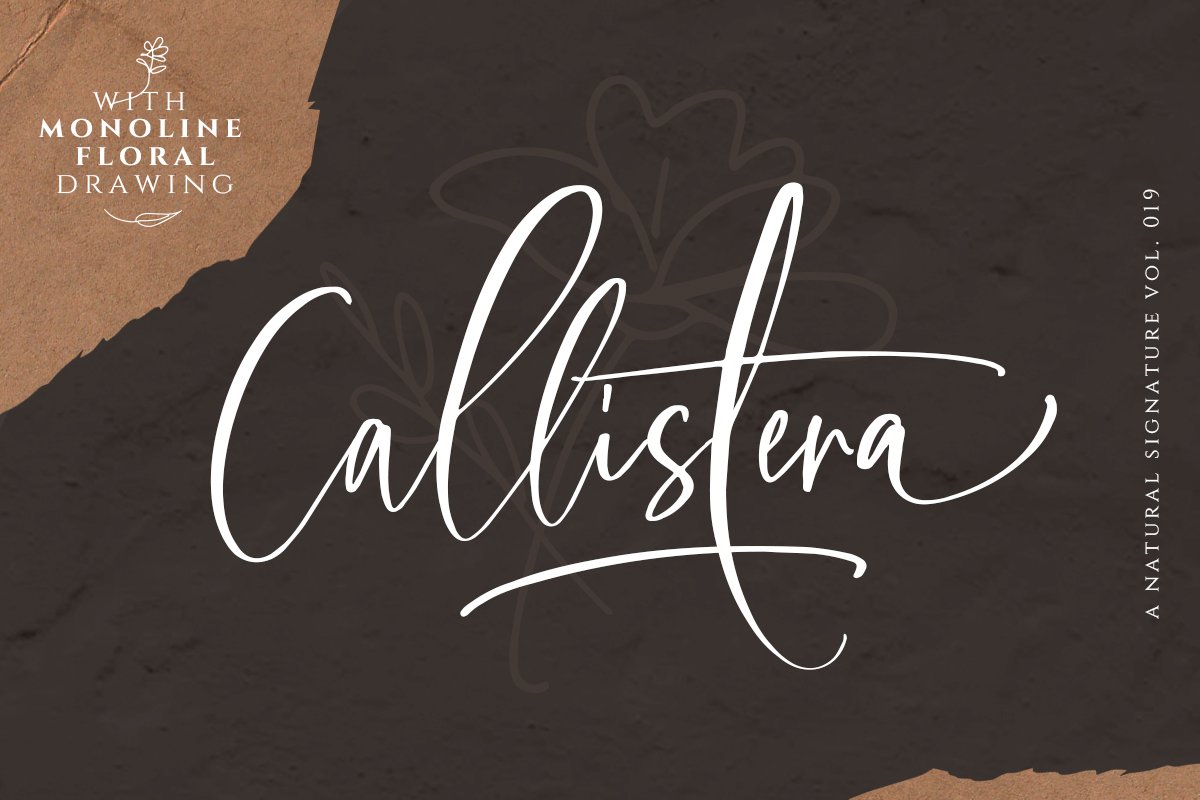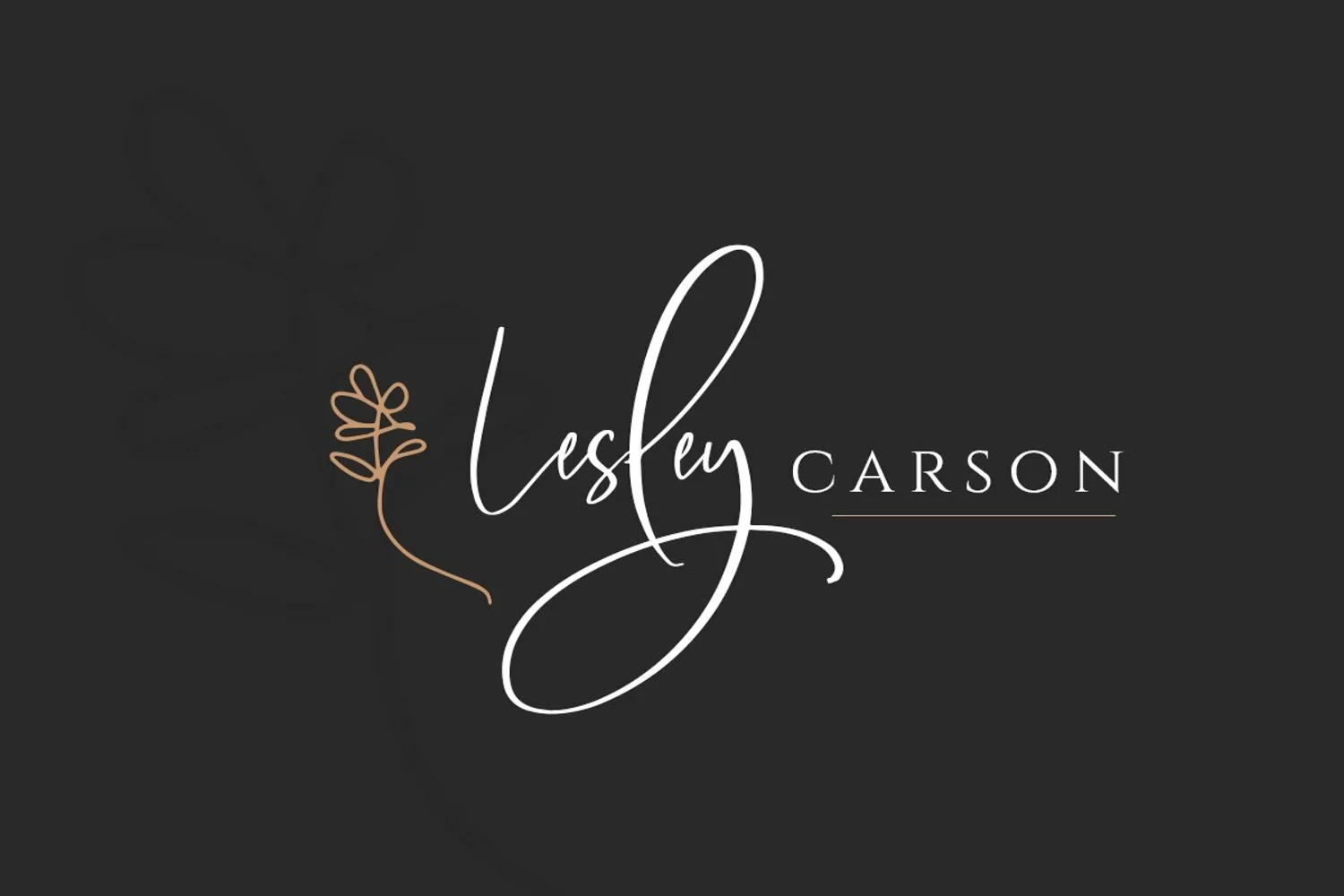
Callistera Signature Script is a natural also expressive signature that contain lowercase, uppercase, symbol, and also support multi language. Comes with ligature, contextual alternates, stylistic alternates, swash, and also underline. Callistera Signature Script also suitable for logo branding, beautiful fashion design, suitable for wedding invitation, or handwritten quote. Also already PUA Encoded. With BONUS monoline flower drawing!